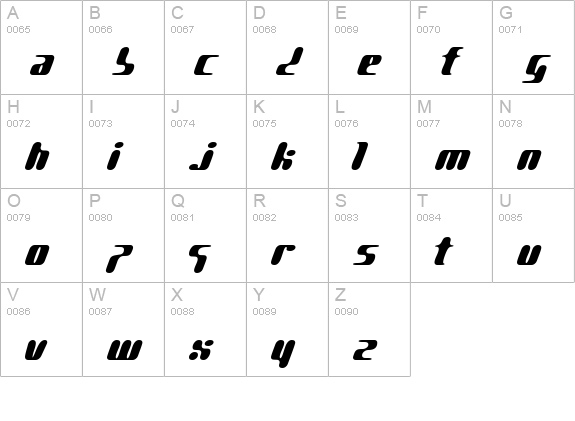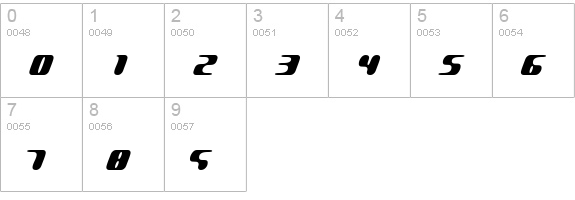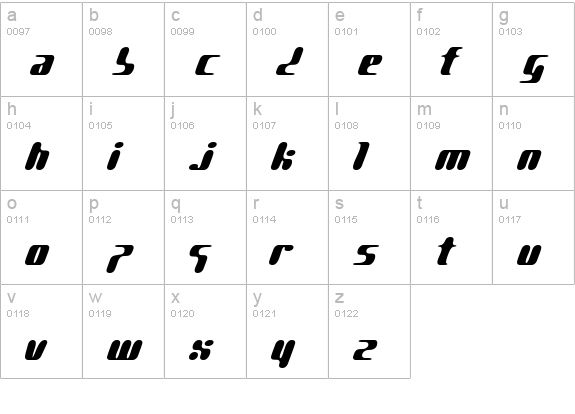
pg GENE Font Details
Introducing the captivating and versatile pg GENE font, a true gem in the world of typography. This extraordinary typeface is meticulously crafted to bring your designs to life with its elegant curves and modern aesthetic. With its seamless blend of contemporary and timeless elements, pg GENE is perfect for a wide range of projects, from branding and advertising to invitations and editorial layouts. What sets pg GENE apart is not only its impeccable design, but also its accessibility. This font is offered to you completely free of charge, allowing you to elevate your creativity without any limitations. Whether you're a professional designer or an aspiring enthusiast, pg GENE is readily available to amplify your typographic endeavors. To obtain this remarkable font, simply head over to FontsMarket.com, where you can freely download pg GENE and add it to your collection. This user-friendly platform ensures a seamless experience, making it effortless for you to explore and acquire the font that will undoubtedly become a staple in your design arsenal. With its wide range of weights and styles, pg GENE grants you the freedom to experiment and create captivating compositions that truly stand out. Whether you're aiming for a refined and sophisticated look or a bold and impactful statement, this font has got you covered. Its versatility knows no bounds, allowing you to effortlessly adapt it to any project or design concept. Experience the power of pg GENE font and unleash your creative potential. Embrace the beauty of this freely available typeface and watch as it transforms your designs into works of art. Download pg GENE today from FontsMarket.com and embark on a typographic journey like no other.